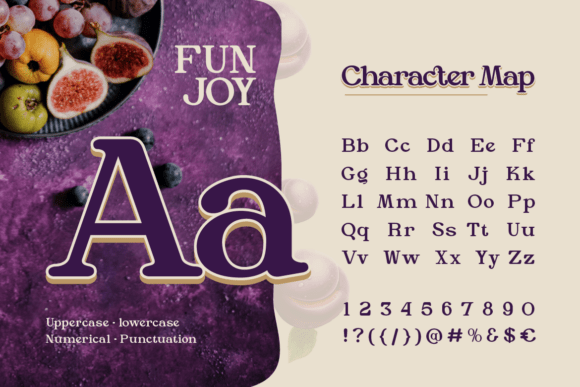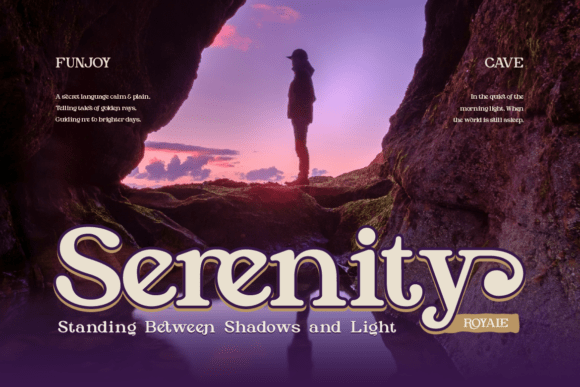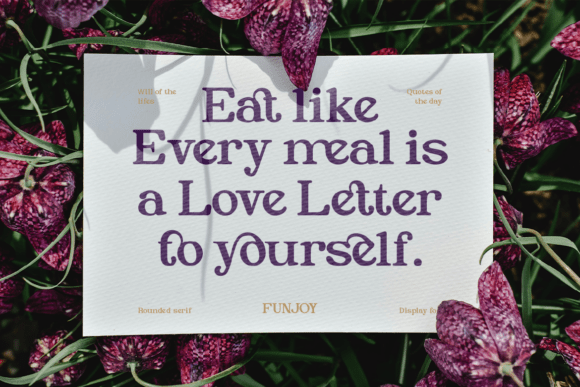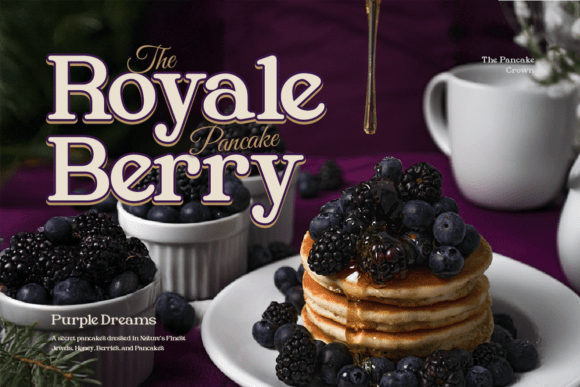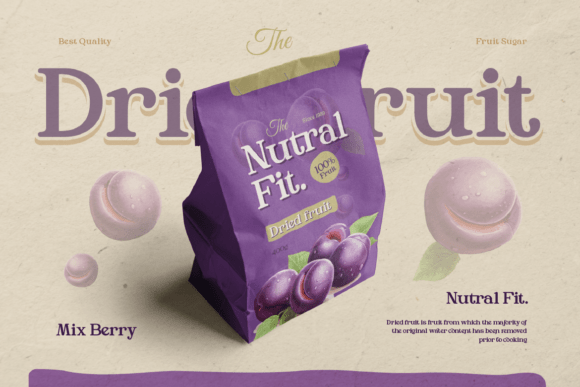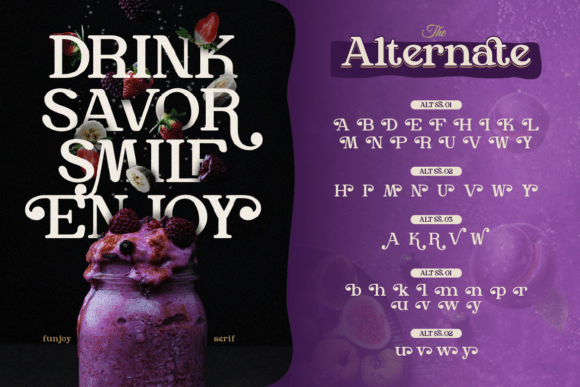
Introducing Funjoy: The Ultimate Font for Joyful Designs
I’ll never forget the time I was working on a branding project for a children’s play center. My client wanted a font that was playful, cheerful, and would appeal to both kids and adults. I spent hours scouring the internet for the perfect font, but nothing seemed quite right. That was until I stumbled upon Funjoy, a rounded serif font that instantly brought a smile to my face. In this article, I’ll share my experience with Funjoy, its features, and how to make the most of this delightful font.
A Personal Review of Funjoy
What I Love About Funjoy
• Unique Blend of Classic and Modern: Funjoy combines the elegance of serif fonts with a modern twist, making it perfect for projects that need a touch of sophistication and playfulness.
• Extensive Language Support: With multilingual support, Funjoy is an excellent choice for global brands or projects that require text in multiple languages.
• 🎉 Alternates and Ligatures: Funjoy comes with a range of alternates and ligatures, allowing you to add a personal touch to your designs.
• 👍 Versatile: Whether you’re designing a logo, packaging, or social media graphics, Funjoy adapts effortlessly to any project.
While Funjoy is an excellent font, there are a few minor quirks to be aware of:
• ⚠️ Some Alternates Can Be Finicky: Occasionally, certain alternates may not display correctly in certain software or platforms. Be sure to test your design across different environments.
The Backstory of Funjoy
Funjoy was designed with one goal in mind: to bring joy and playfulness to designs. Its creator, a passionate typographer, wanted to craft a font that would evoke a sense of happiness and approachability. With its rounded serifs and modern twists, Funjoy is the perfect result of this vision.
Q: What type of projects is Funjoy best suited for?
A: Funjoy is versatile and can be used for a wide range of projects, including branding, logo design, packaging, restaurant menus, headlines, social media graphics, and more.
Q: Does Funjoy support OpenType features?
A: Yes, Funjoy supports OpenType features, including alternates, ligatures, and multilingual support.
Q: Is Funjoy suitable for body text?
A: While Funjoy is primarily designed for headlines and titles, it can be used for body text in certain contexts. However, its playful nature makes it more suitable for attention-grabbing elements.